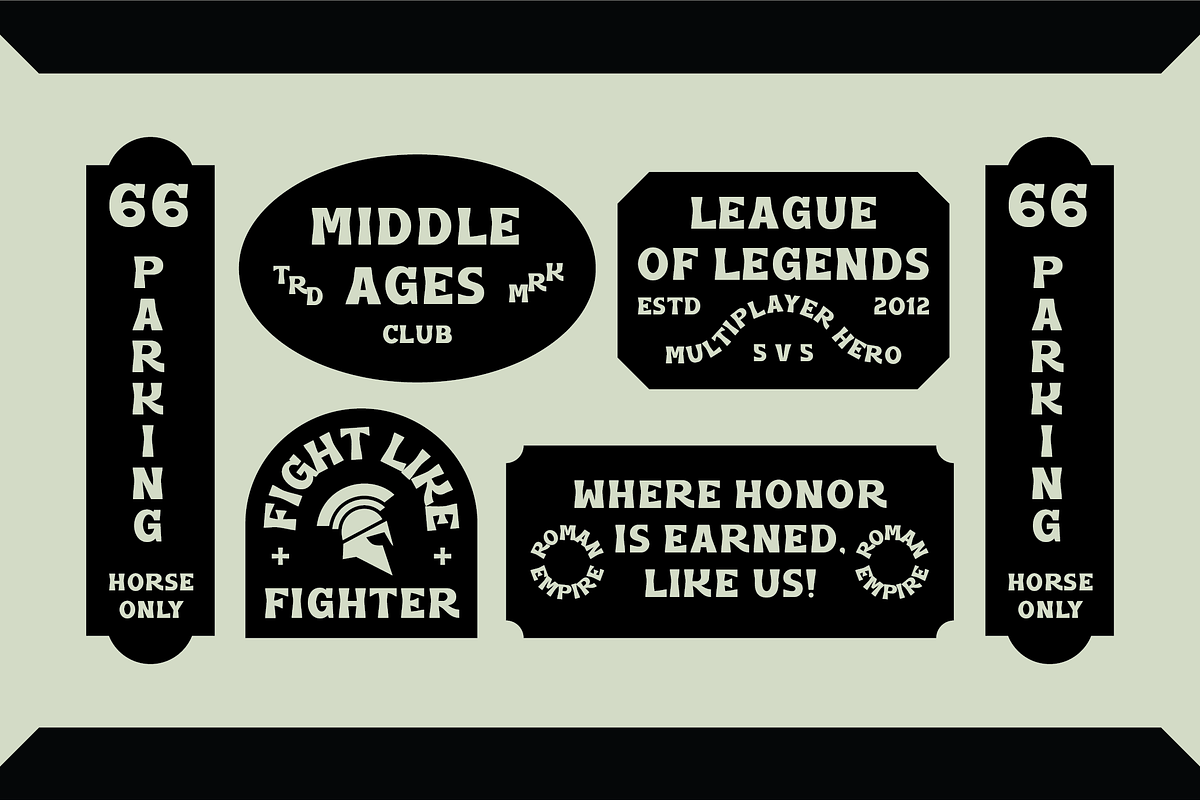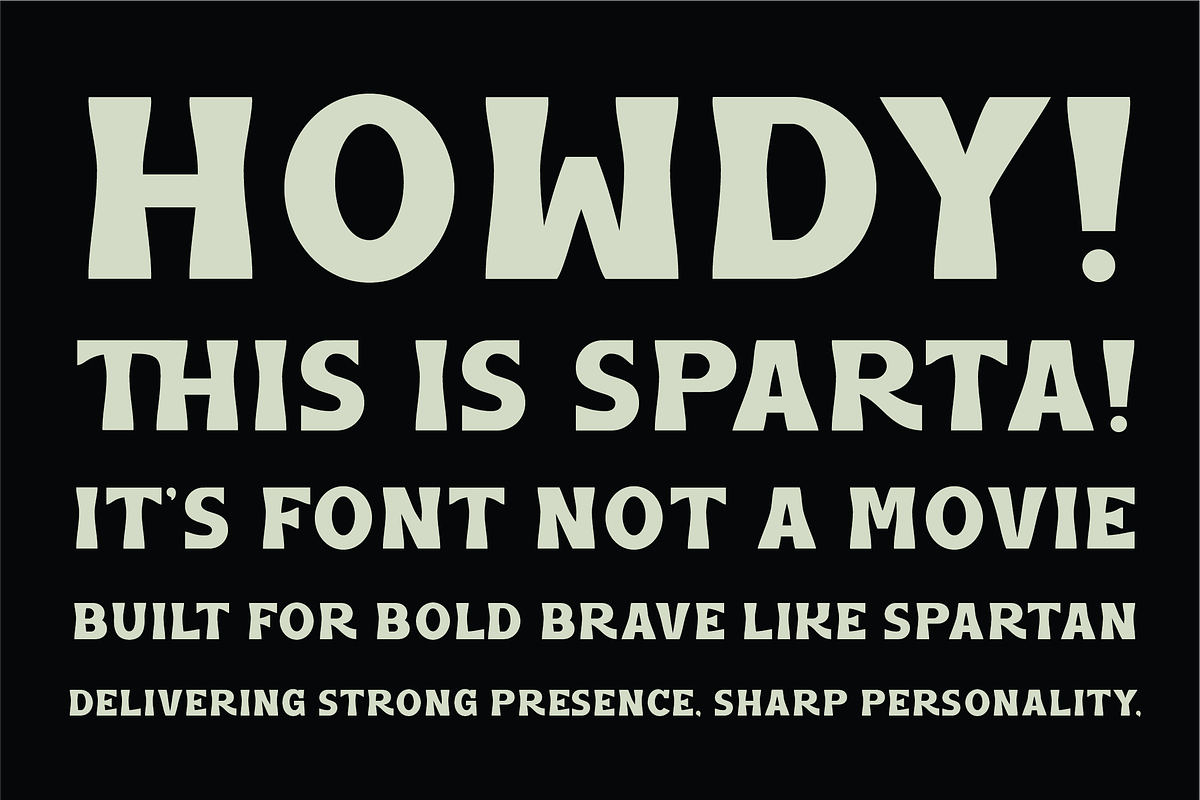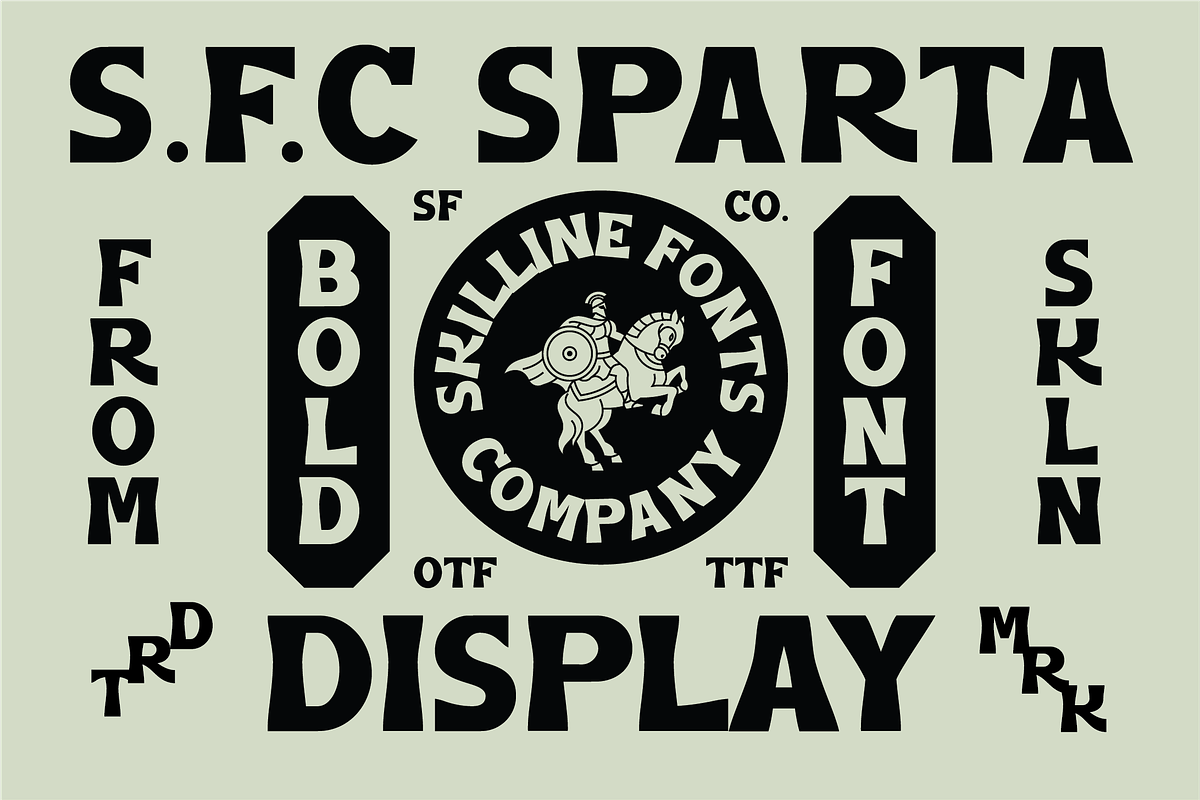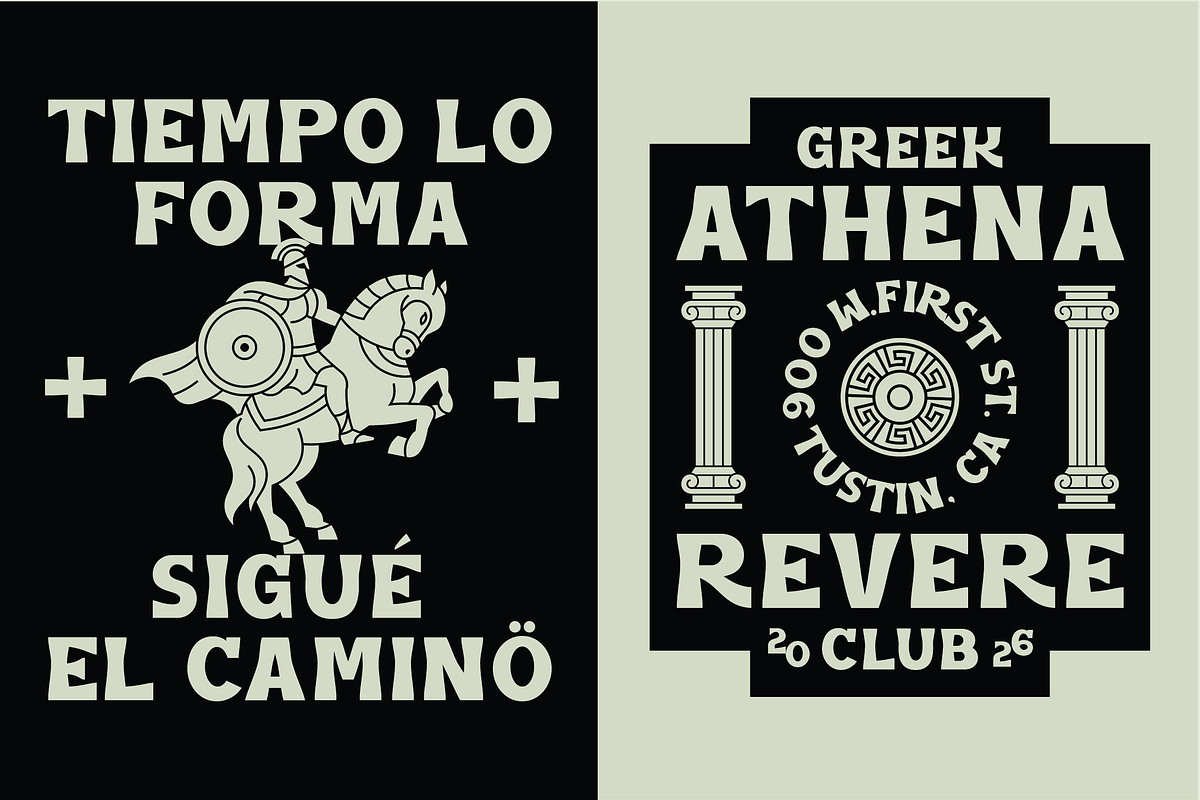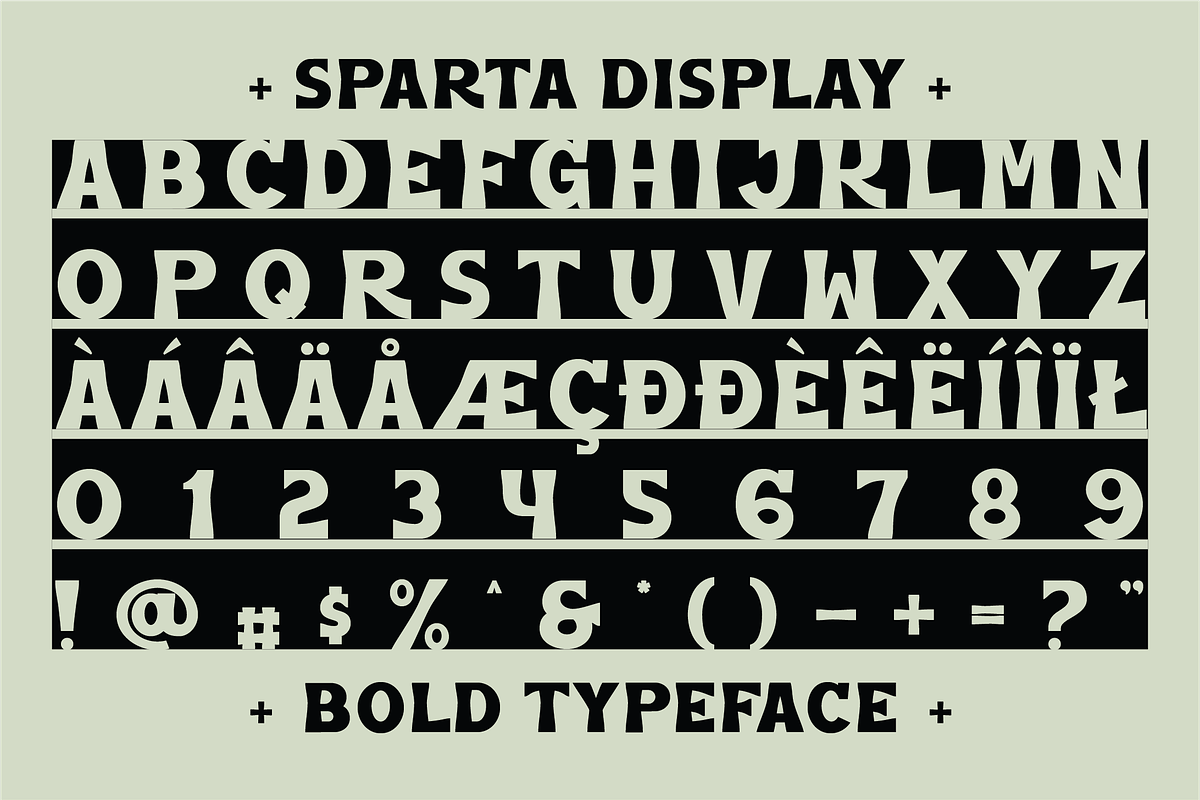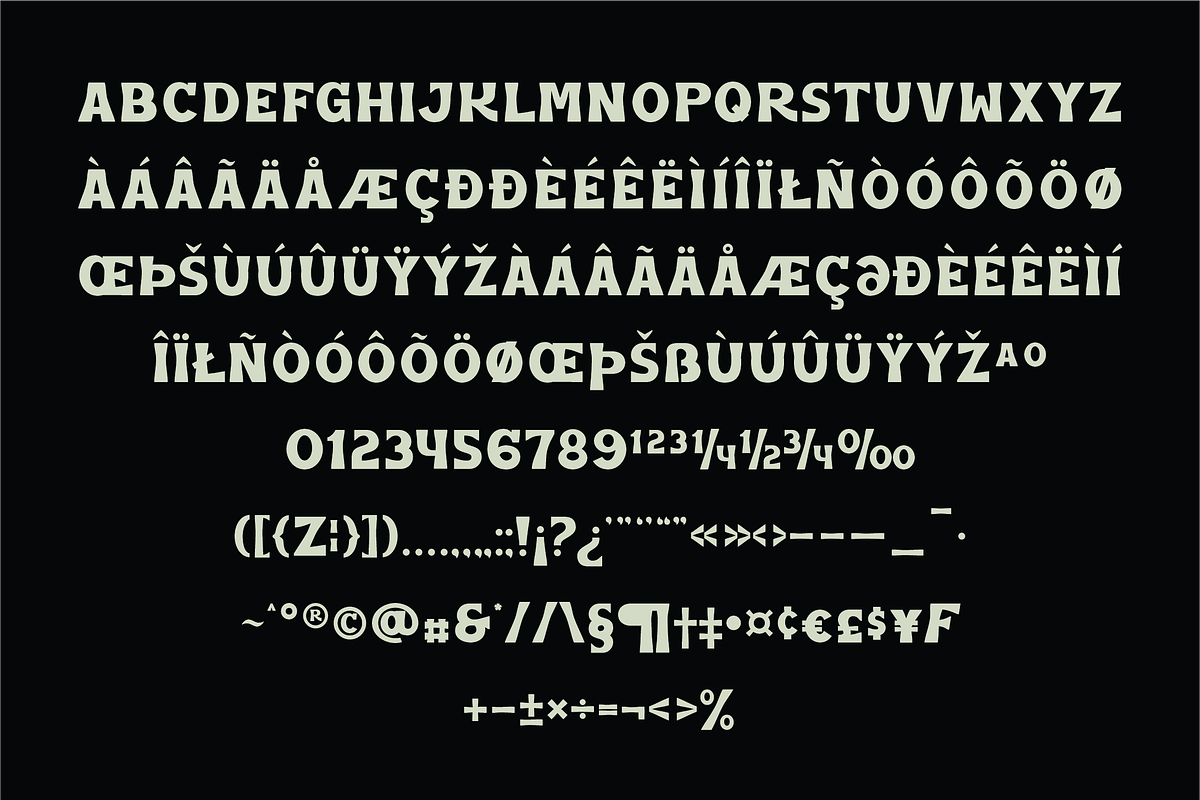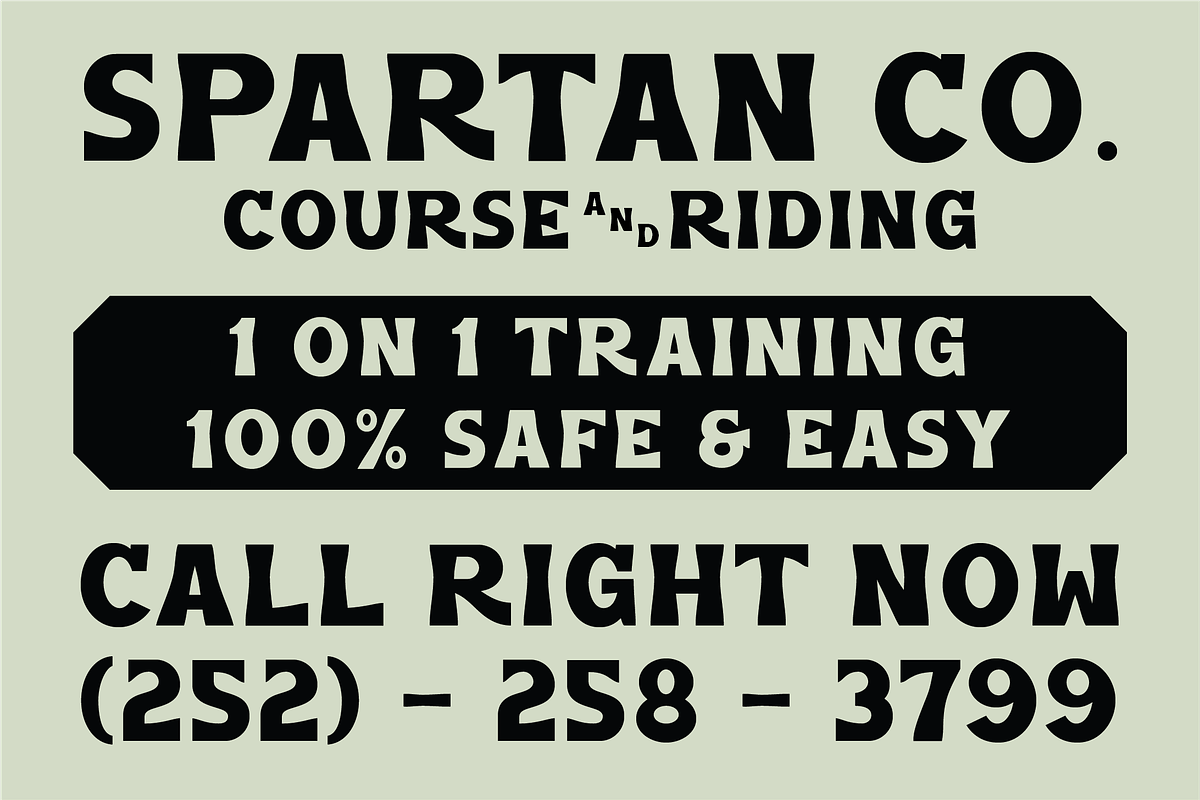
SFC Sparta
SFC Sparta is a bold vintage-inspired display typeface designed with strong curves, solid structures, and confident proportions rooted in classic signage and retro display typography. Built to command attention, its powerful letterforms deliver a masculine, timeless, and high-impact character while maintaining clean readability.
Designed primarily for display use, SFC Sparta excels in bold branding, logos, posters, packaging, apparel, and signage. Its striking presence and classic influence make it ideal for designers seeking a strong vintage aesthetic with modern clarity and professional versatility.
IDEAL APPLICATIONS
- Branding & visual identity
- Vintage & retro posters
- Logos & bold headlines
- Packaging & label design
- Apparel & merchandise
- Signage & display typography
- Badges, emblems & titles
- Bold Display Typeface
- Vintage & Classic Signage Inspired
- Strong Curves & Solid Letterforms
- High Impact & Readability
- Display & Branding Ready
- Ideal for Print & Digital Use